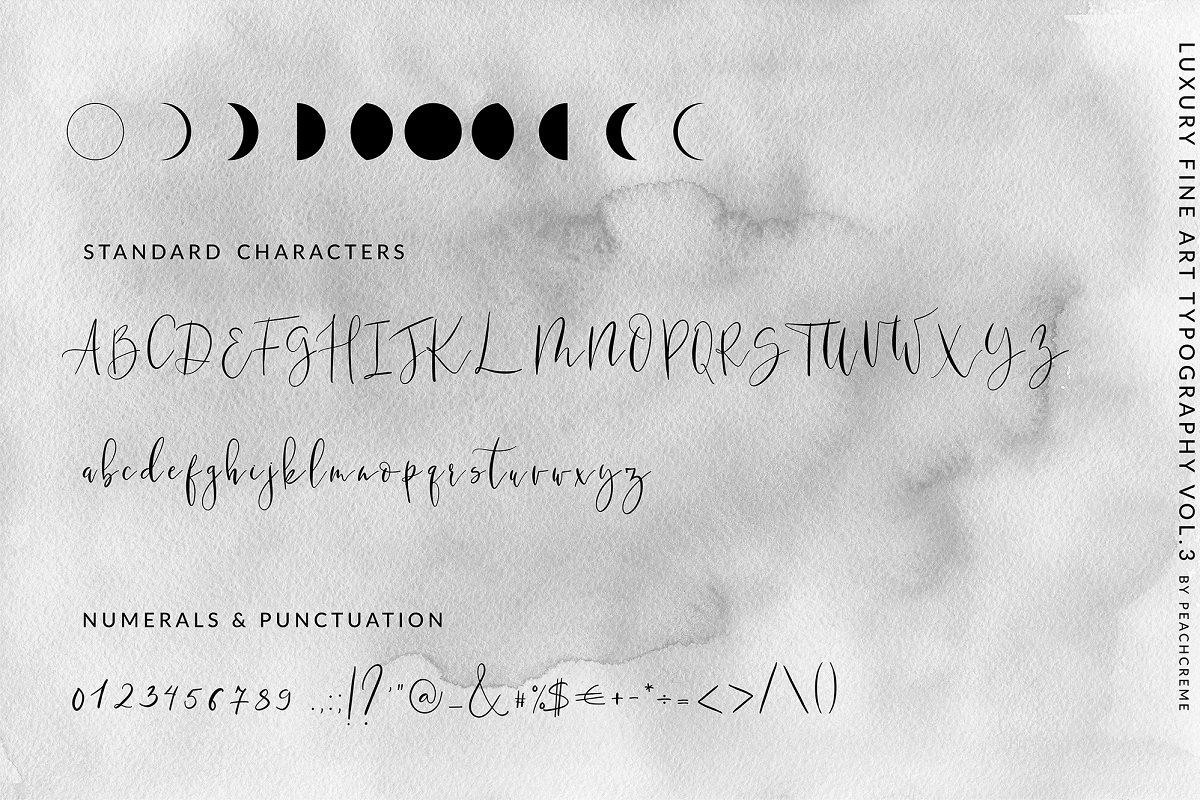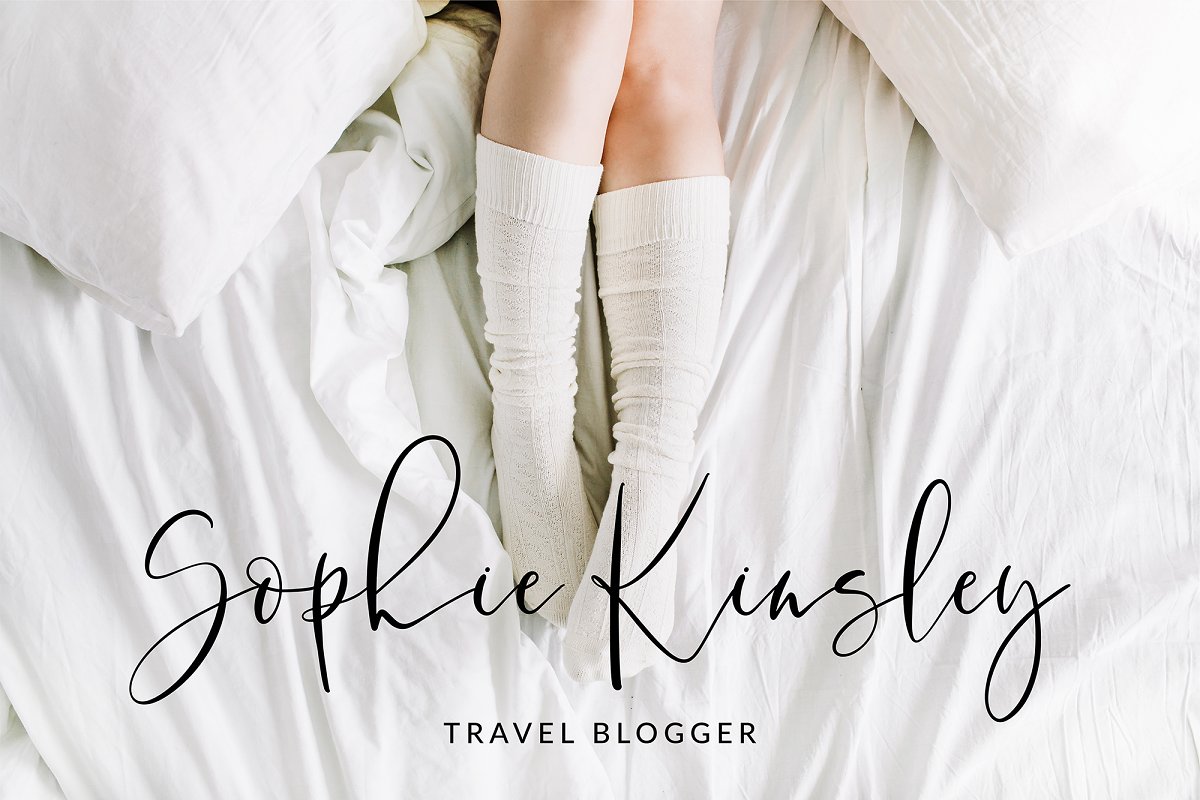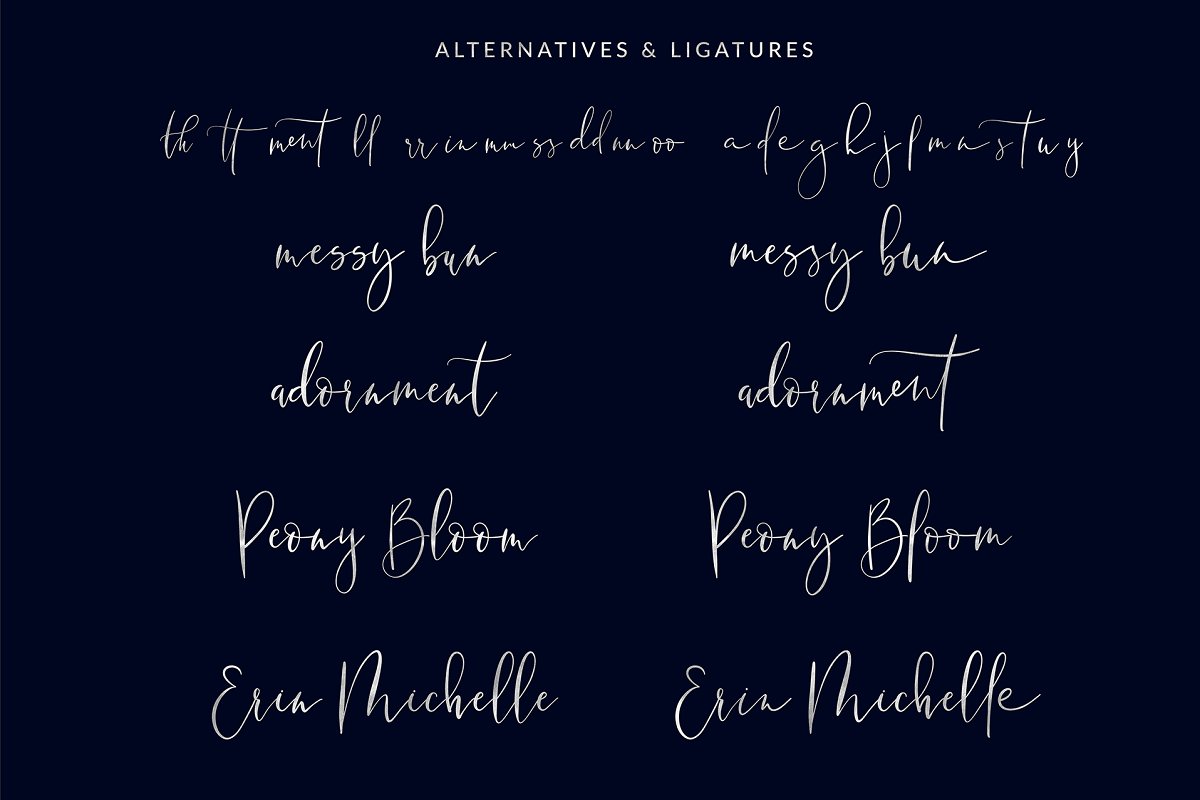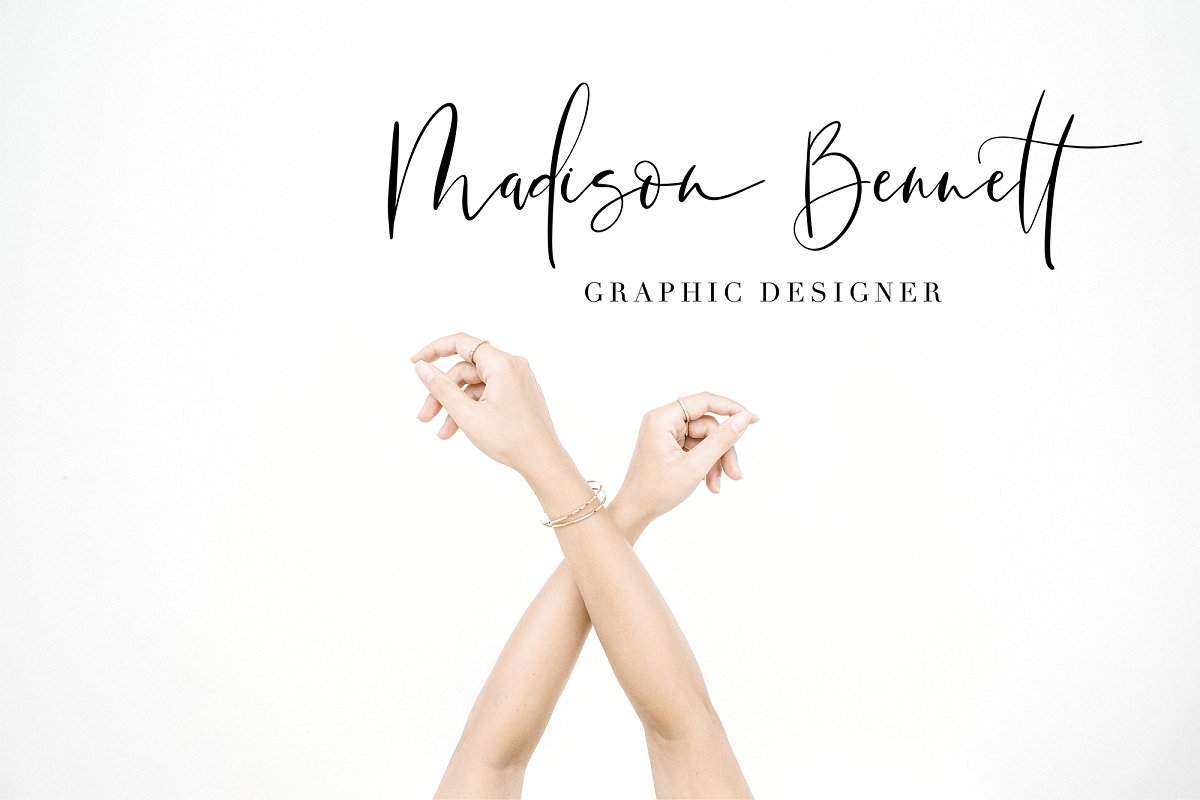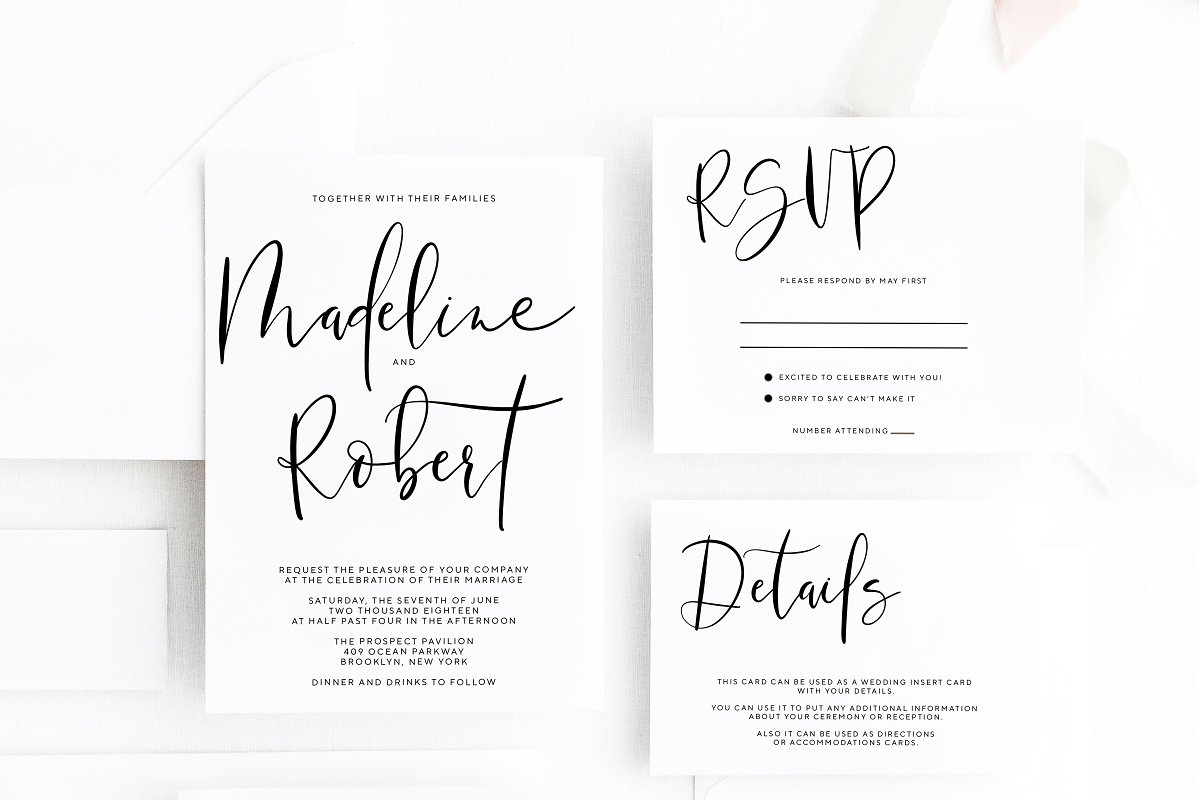
About the Wild Moon Casual Script Font
LUXURY FINE ART TYPOGRAPHY VOL, 3“Wild Moon” is a casual hand-lettered script font with “wild”, “imperfect brush” touch, It is perfect for branding, event invites, lovely Instagram posts, “Wild Moon” includes full set of charming uppercase and lowercase letters, numerals, punctuation, and GORGEOUS alternatives and ligatures, giving realistic hand-lettered style